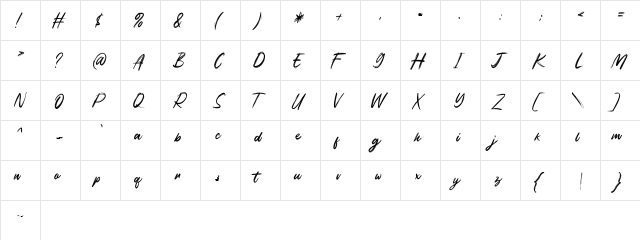
Superbia DEMO Regular
| Foundry | Rillatype |
| Designer | Gustian Agung Asprilla |
Design Context for Superbia DEMO Typeface
Superbia DEMO is a composed and adaptable typeface that performs quietly and consistently across a wide range of design contexts.